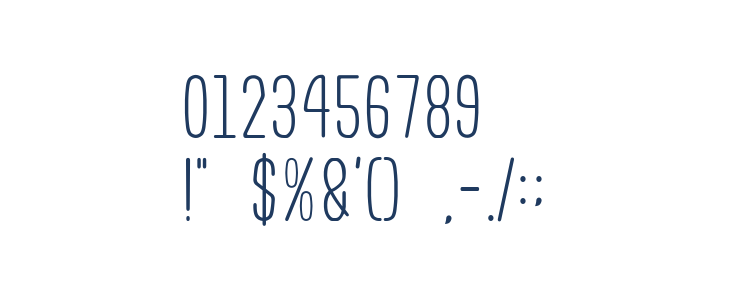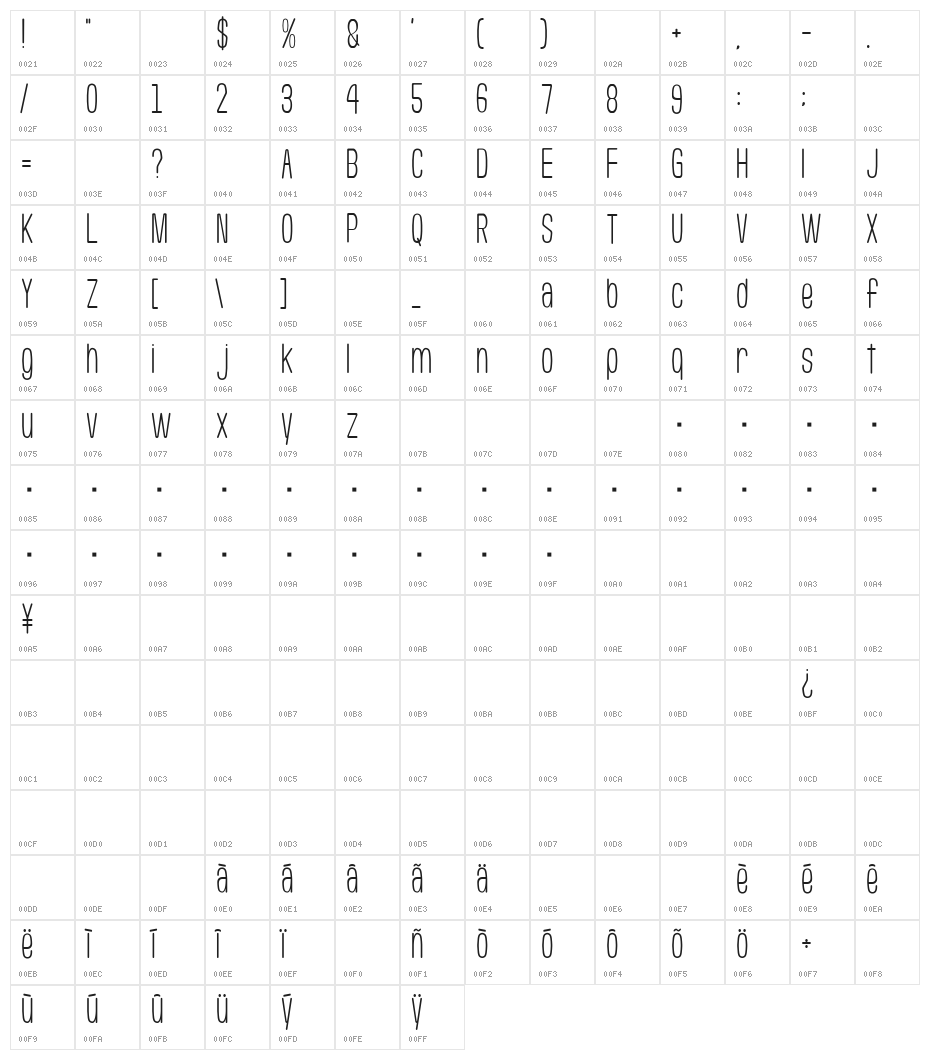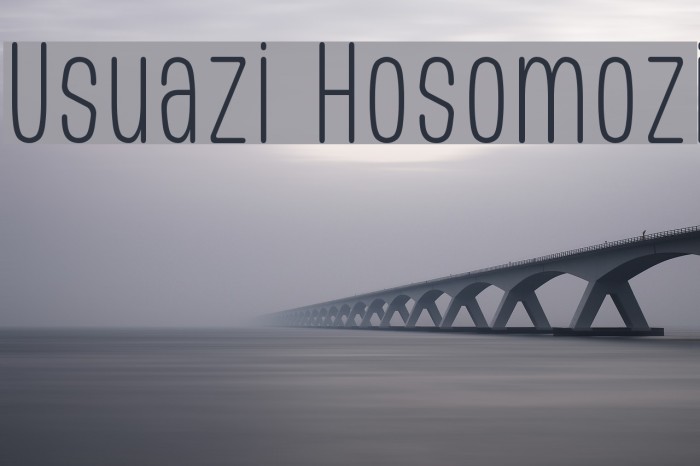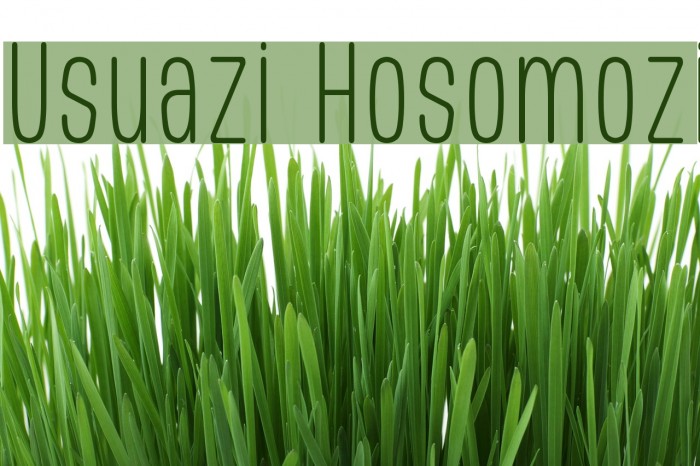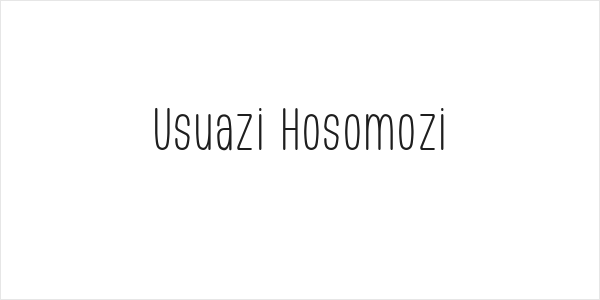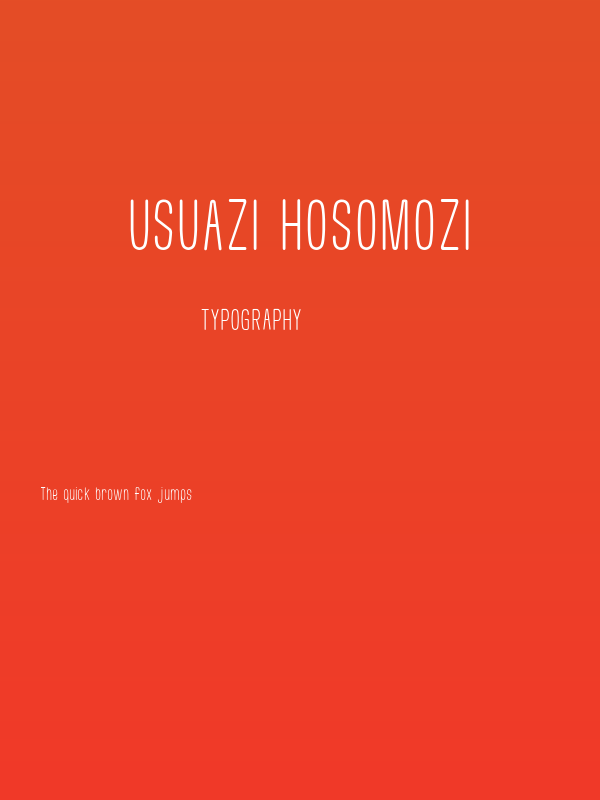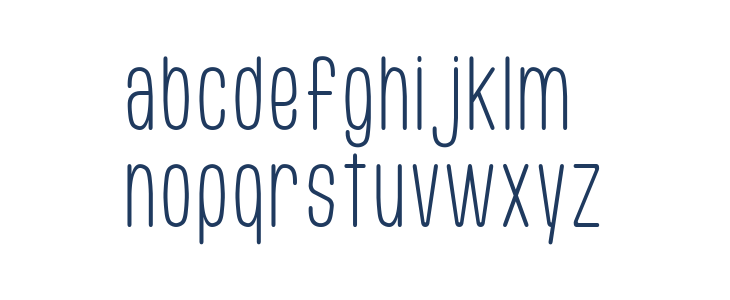
Usuazi Hosomozi Font
Usuazi Hosomozi Description
This font features a clean and modern sans-serif design with a tall, narrow structure. The characters are uniformly thin, giving it a sleek and elegant appearance. The uppercase letters are slightly taller than average, while the lowercase letters maintain a consistent height, contributing to its streamlined look. The numbers and special characters are designed to match the overall aesthetic, with a focus on simplicity and readability. The font's minimalistic style makes it versatile for various applications, maintaining clarity even at smaller sizes.
| Use Case | Headlines, Logos, Body text |
| Proposed Projects | Ideal for modern branding, minimalist posters, sleek website headers, and contemporary editorial layouts. |